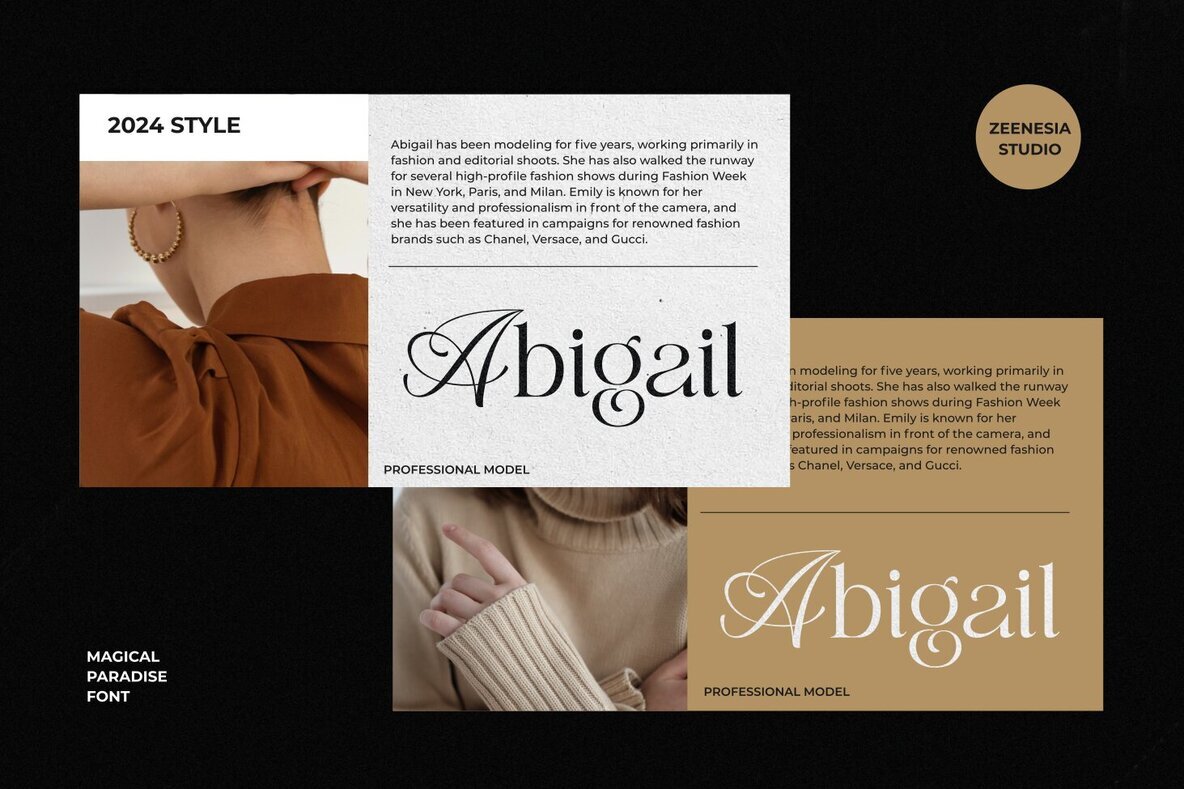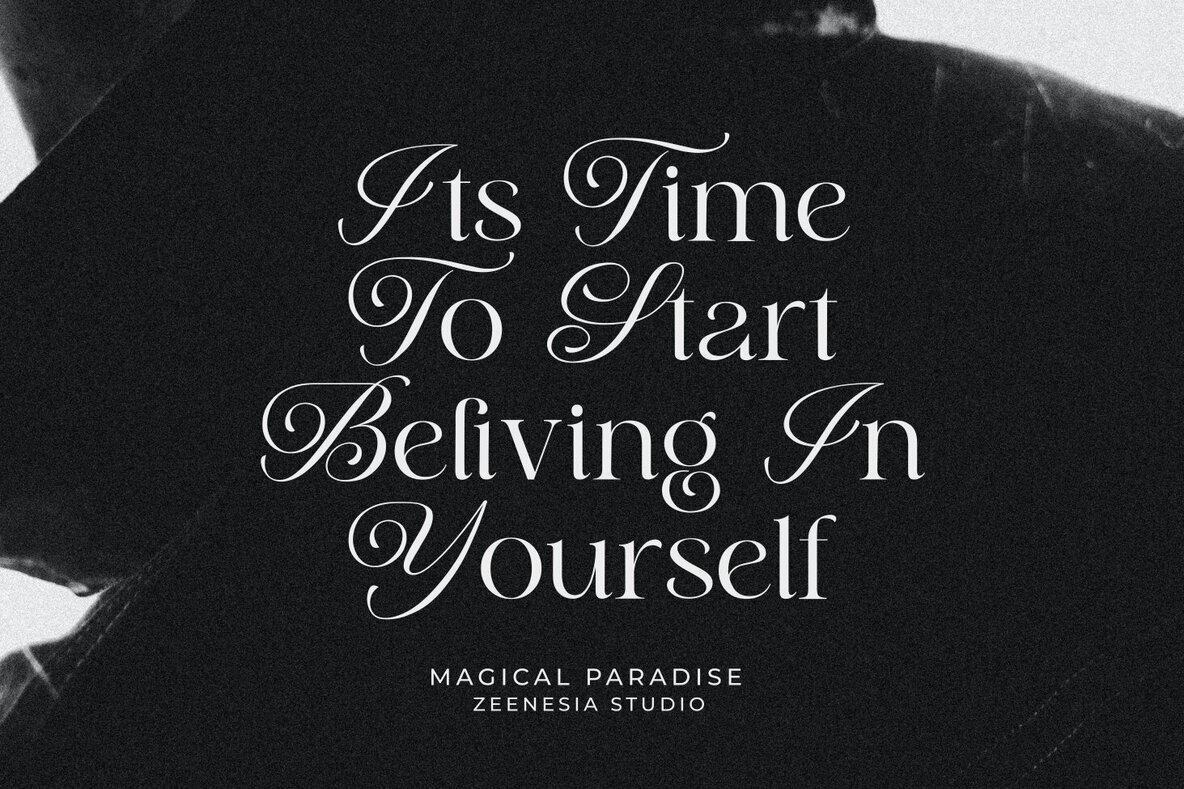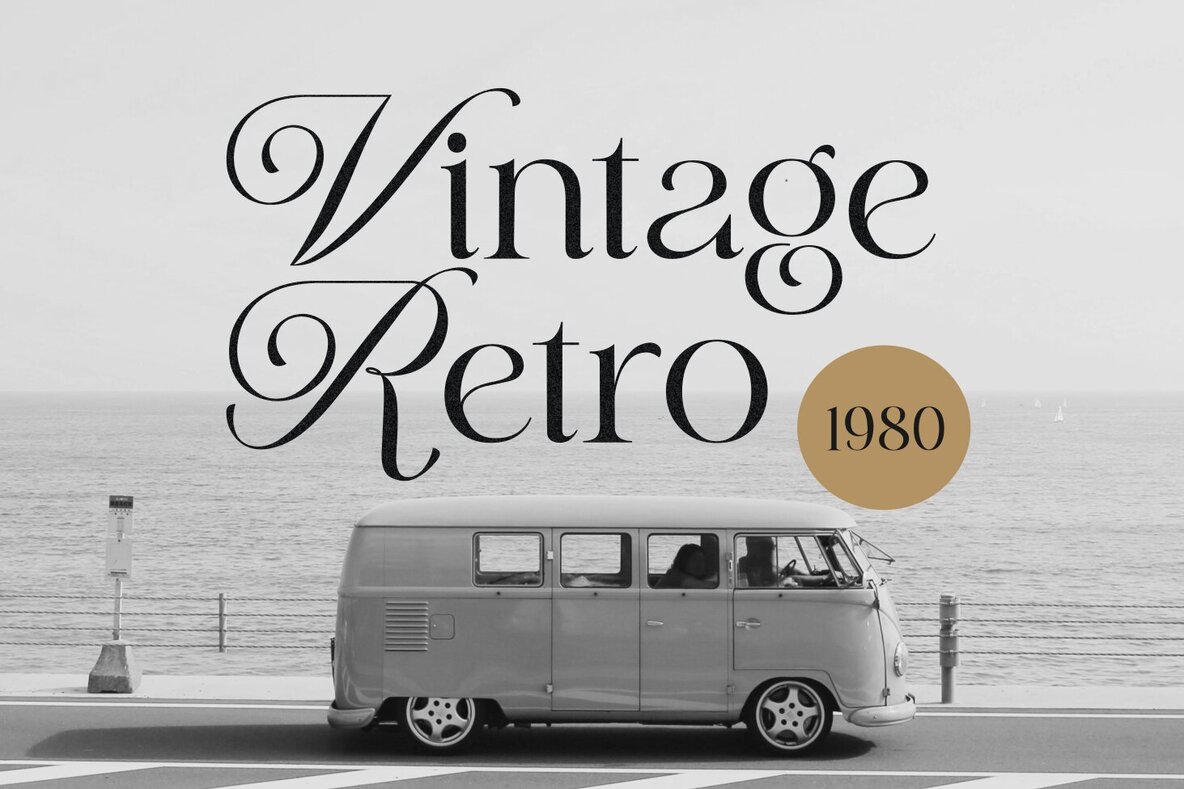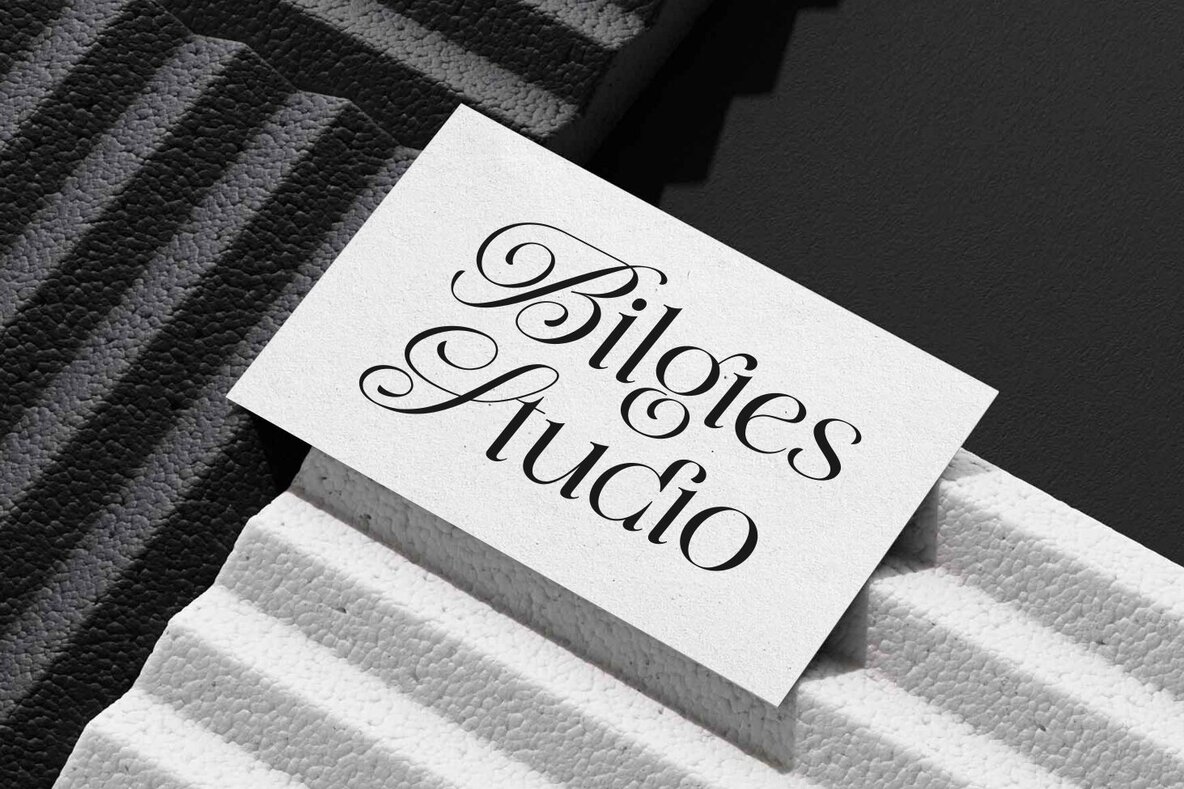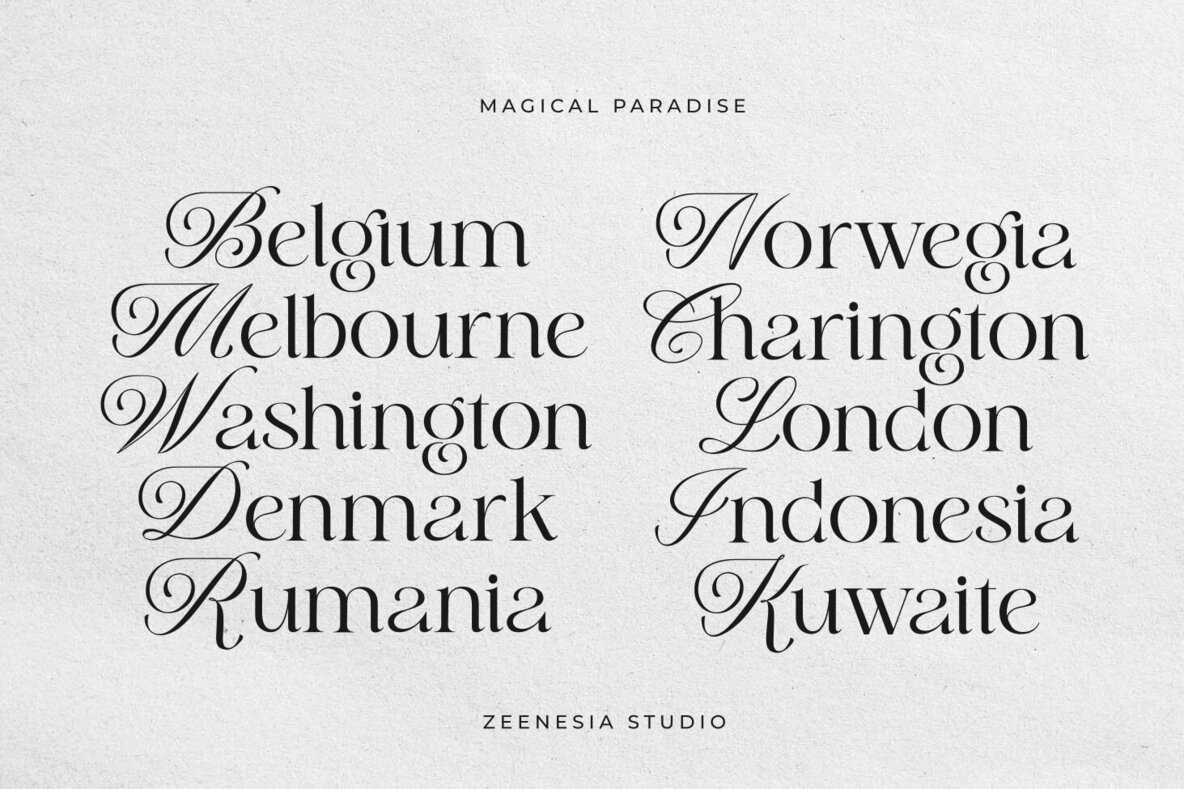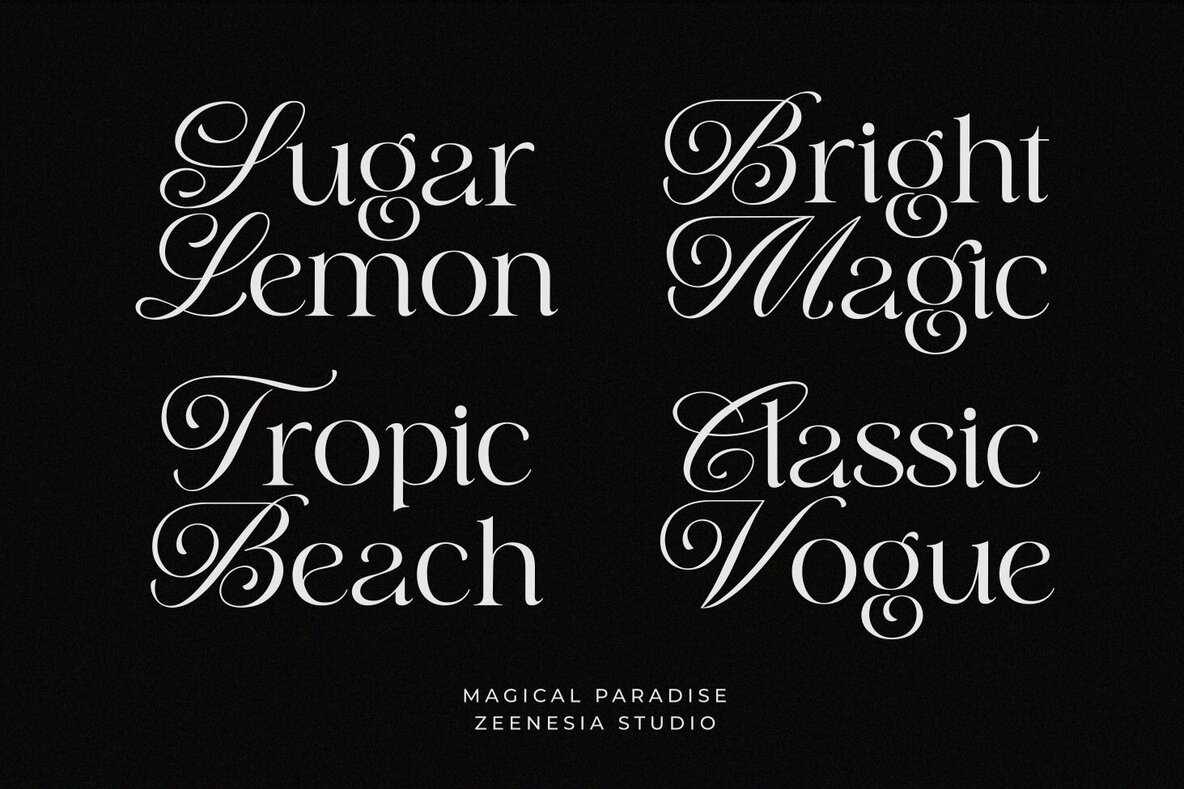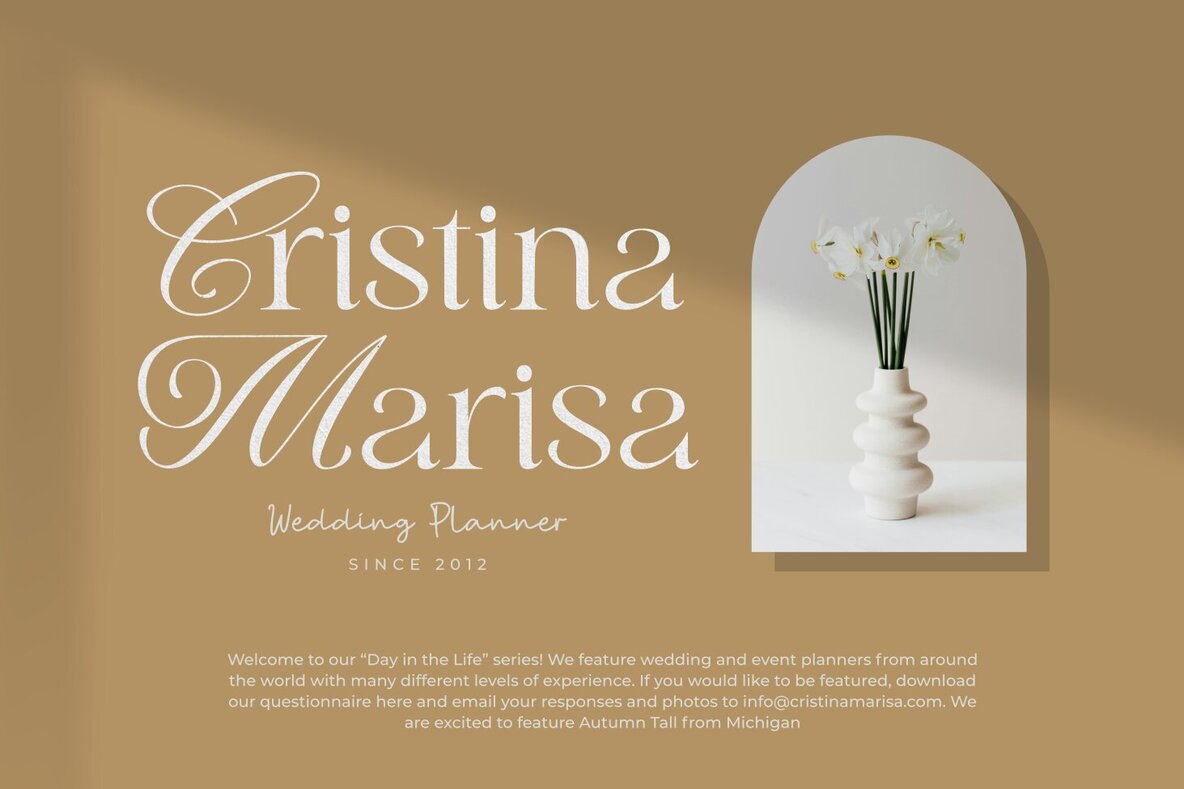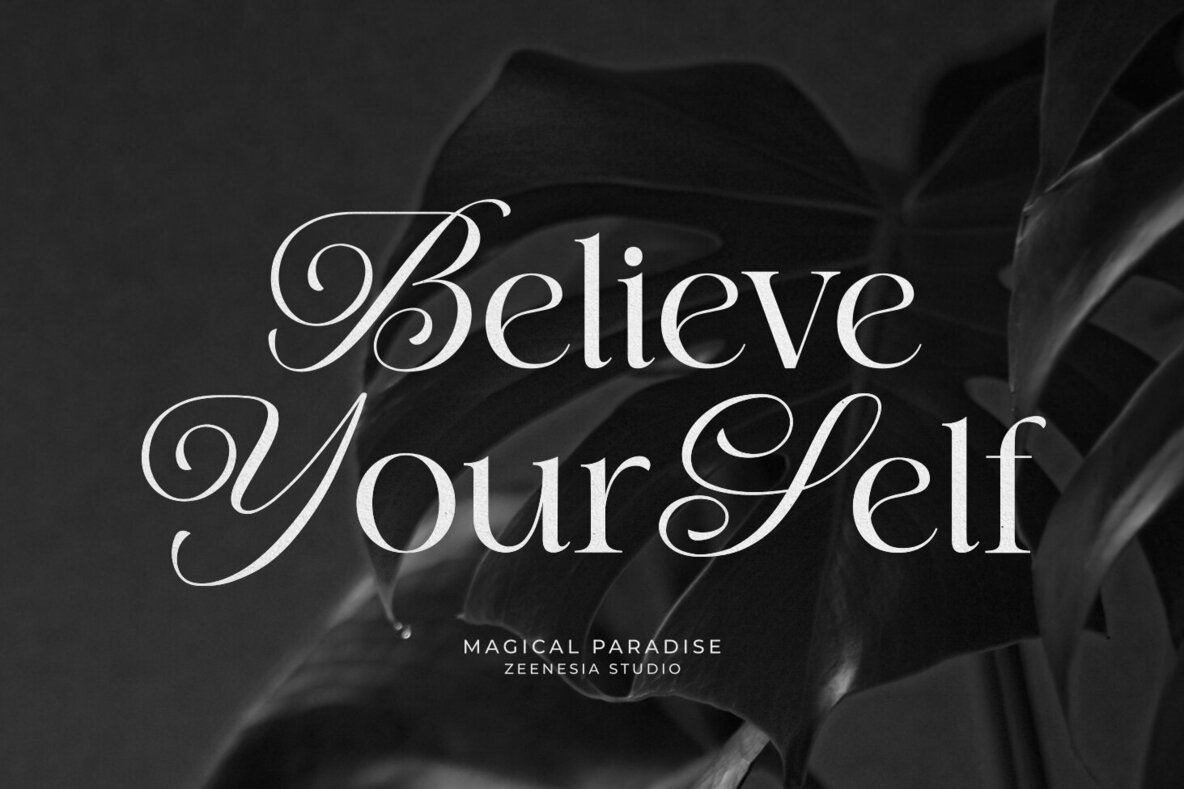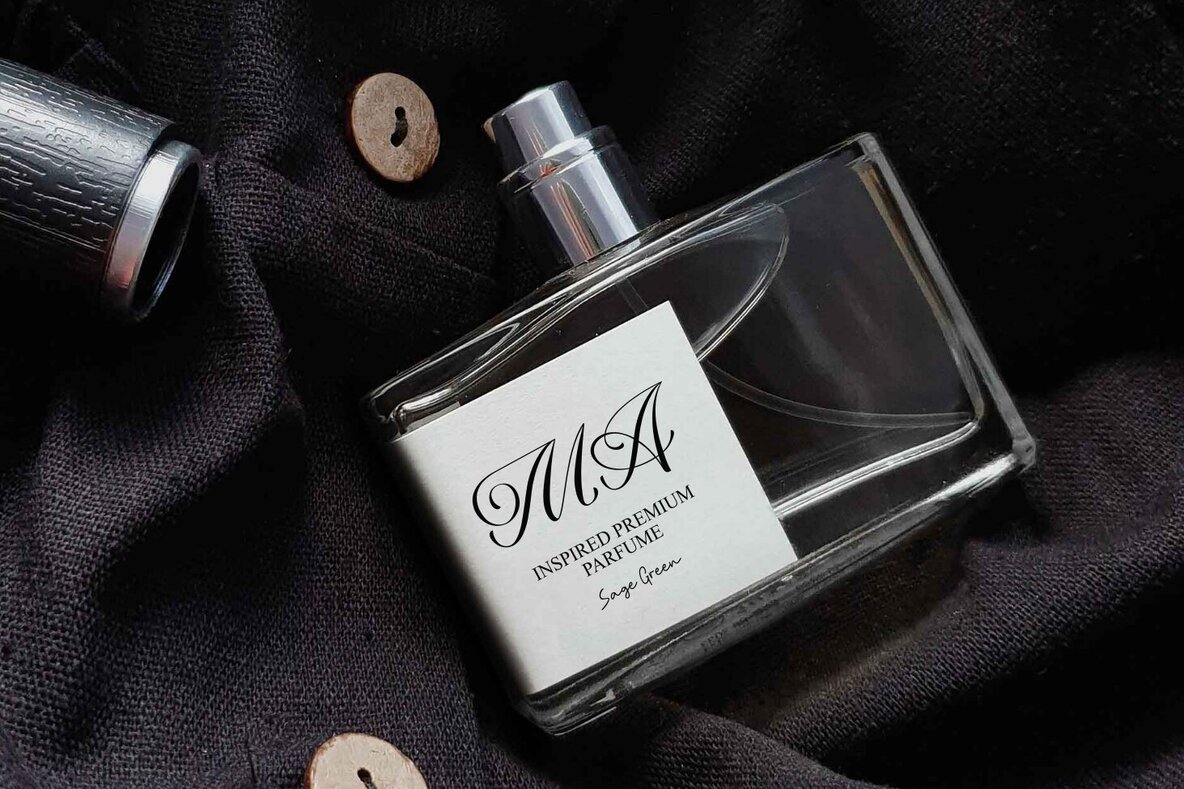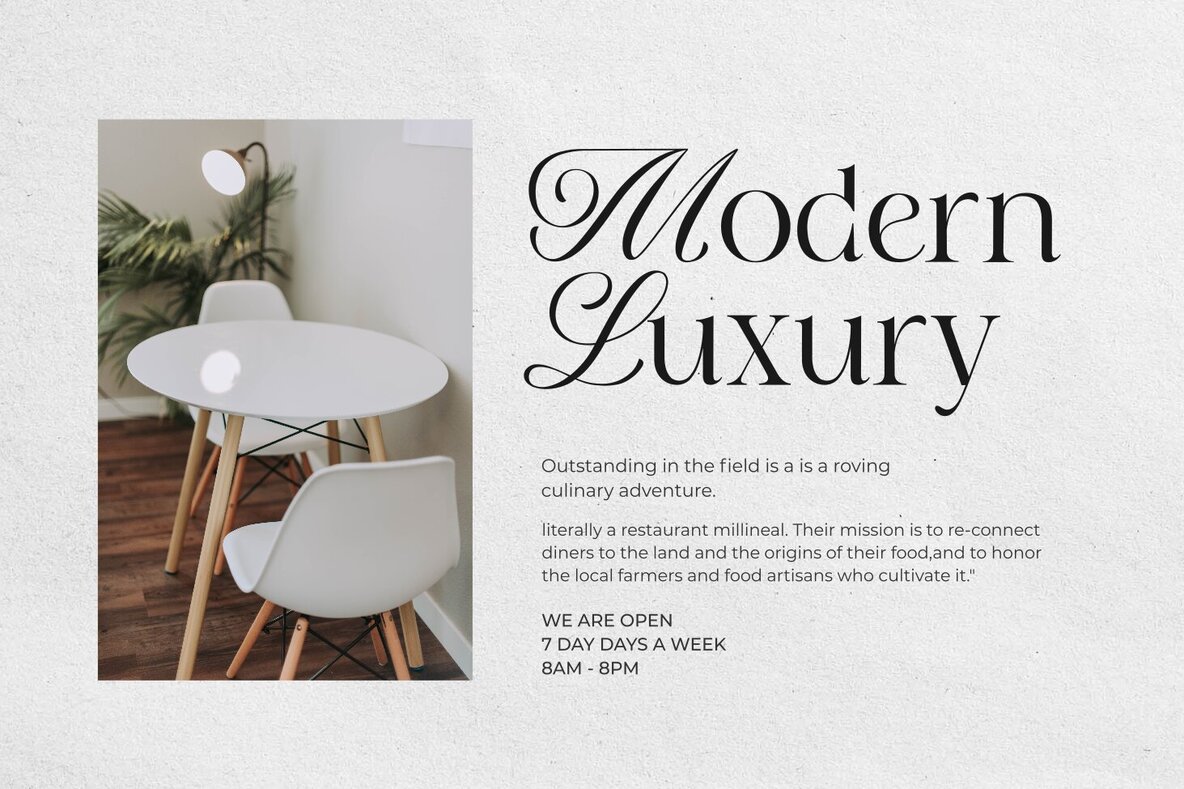
Magical Paradise Font
Magical Paradise Regular
Magical Paradise blends modern display elements with serif and script styles, delivering a unique and playful aesthetic. Perfect for projects seeking a touch of fun, this font excels in editorial work, logo design, clothing branding, product packaging, and magazine headers. Use it to create a stylish text overlay on any background image.Magical Paradise: A Playful Display Font with Serif and Script